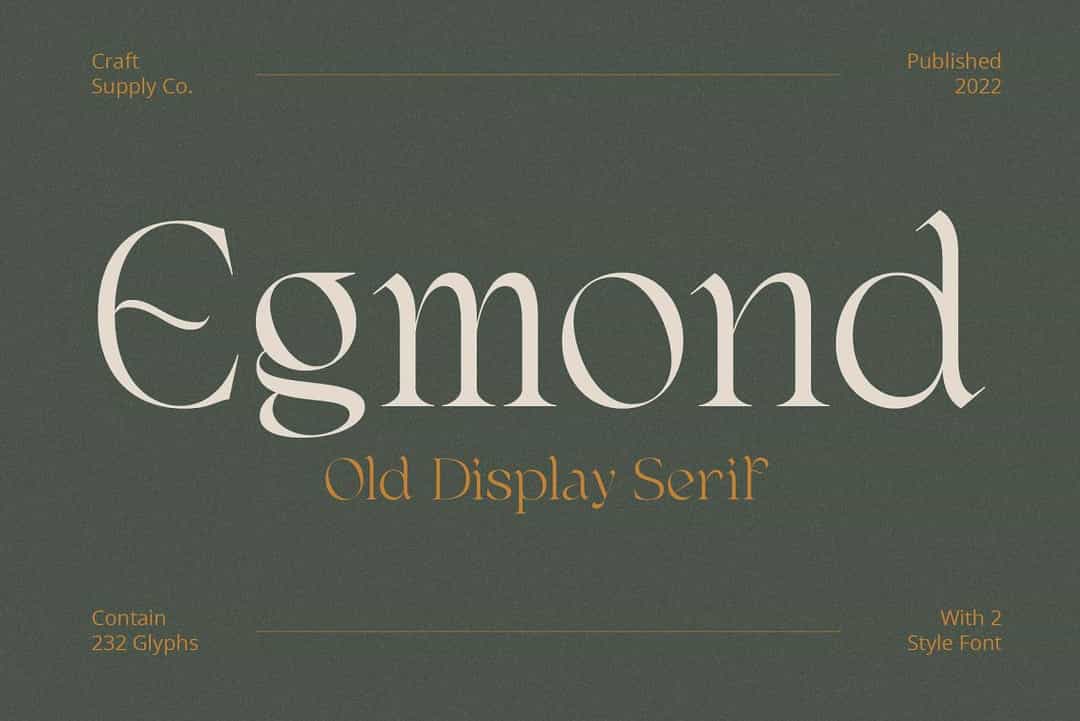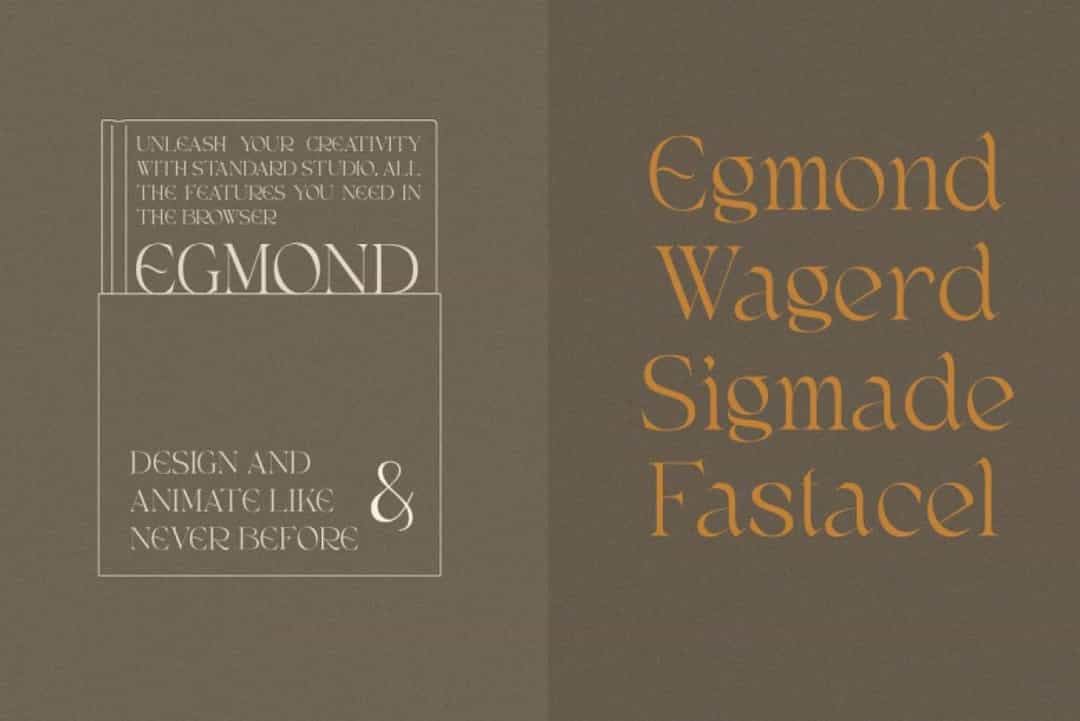
Egmond can be described as an elegant and sophisticated display serif font that exudes style and class. No matter the subject matter or situation, Egmond makes for an ideal addition to your font library and will enhance any font collection.